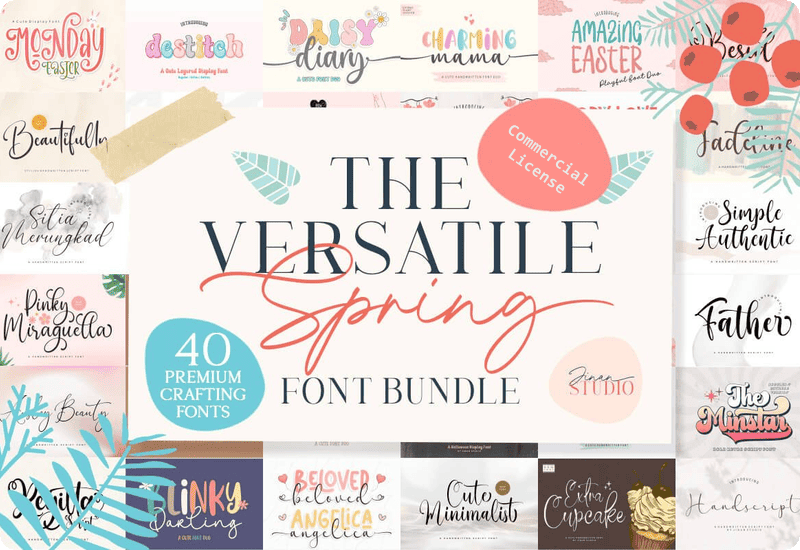
Spring has sprung in the world of design, and what better way to refresh your typography collection than with The Versatile Spring Font Bundle! Formerly valued at a whopping $670, this exquisite bundle is now available without cost – a designer’s daydream come true.
The Versatile Spring Font Bundle is packed with 40 premium fonts that range from whimsical Font Duos to elegant Scripts and bold Displays.This collection is a treasure trove for creatives yearning to infuse their projects with the essence of spring – joy, love, and renewed vitality.
- Father Script & Handwritten Font
- Fadeline Script & Handwritten Font
- Sitia Merungkad Script & Handwritten Font
- Christa Bella Script & Handwritten Font
- Lovely Clara Script & Handwritten Font
- Reghitta Script & Handwritten Font
- Rossalista Fuentes Caligráficas Fuente
- Beauty Flowlysta Script & Handwritten Font
- Patris Amstrong Script & Handwritten Font
Blossom Your Designs into Life with Font Variety
The Versatile Spring Font Bundle flaunts a garden of fonts that are as varied as they are harmonious. The Daisy Diary and Blinky Darling Duo marry script with handwritten styles, conjuring an image of a sunny day spent penning letters in a field of flowers. Take a turn toward the festive with the Easter Monday Display Font, ideal for thematic promotions and event posters.
Storytelling with Every Stroke
Allow fonts like Story Love and Hello Mother to narrate the tales of your design with their gentle yet captivating characters. These thoughtful choices are not mere fonts – they’re a storyline waiting to unfold on greeting cards, wedding invitations, or personalized stationary.
Make Headlines with Elegant Scripts
Script fonts such as Ansley Beauty and Regitta are a calligrapher’s dream and promise to impart sophistication onto book covers, fashion branding, or magazine headers. Their elegant swashes and refined letterforms evoke the sense of high-end design.
Draw Attention with Display
Create signage that stands out using the Destitch or Groovy Witches Display Fonts. Their bold and unique characteristics are a surefire way to grab the gaze of passersby, making them perfect choices for storefronts, banners, and digital advertisements.
Cater to an International Audience
With this font collection’s range of typography, featuring titles such as the Beloved Angelica Czcionki Skryptowe and the Rossalista Fuentes Caligráficas, your designs can cater to diverse audiences, resonating across different languages and cultures.
Design for Every Season
While the bundle is a nod to spring, fonts like the Smell of Christmas and Blessed Christmas Display ensure you’re equipped all year round. Tailor your thematic designs to any season or celebration with typefaces that encapsulate the spirit of the occasion.
Create with Love
Each font in the Versatile Spring Font Bundle is infused with the essence of its creation – love. Whether you’re conveying the soft whispers of a spring breeze with Sitia Merungkad or the jubilant spirit of a sunlit Valentine’s Day with Valentine Kiss Hug Duo, your projects are sure to resonate with every heartstring they tug.